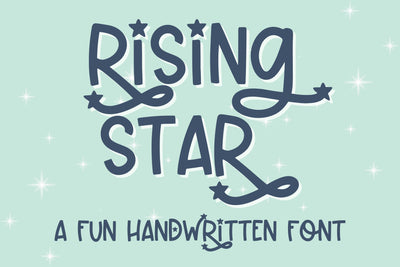
Rising Star, Starry Handwritten Font for Cricut
Rising Star is a starry handwritten font with flourishes and stars, perfect for nursery decor, t-shirts, stickers, and much more. Our handwriting font is compatible with Cricut SVGs, Goodnotes, Procreate, and many other programs. This cute handwriting with stars has ligatures and stylistic alternates and works with any program that supports open type fonts. Get ready to impress with our amazing Cricut font collection and unlock endless possibilities for your artistic endeavors!